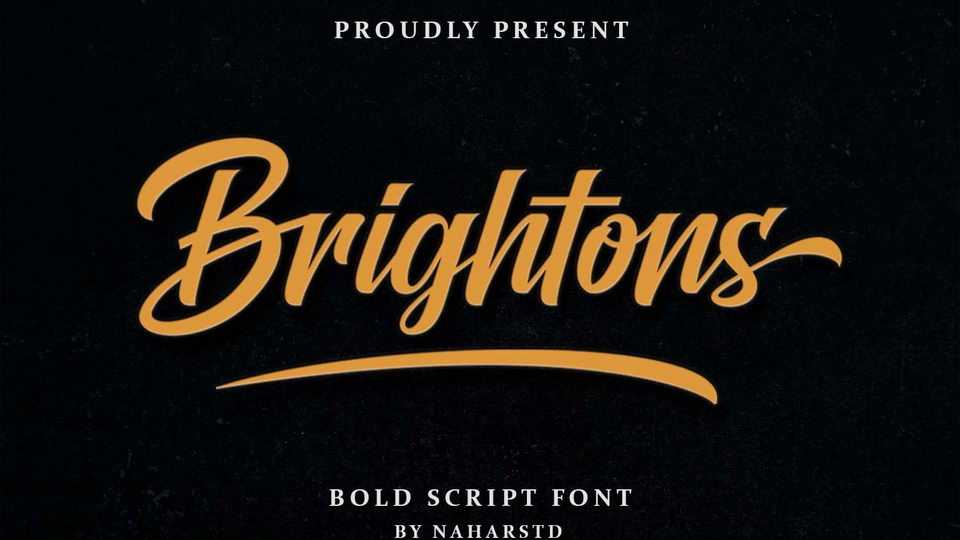
Download Brightons font, a bold style script typeface with authentic and casual feels. Brightons will be perfectly used for lranding, logo design, lettering, logotype, clothing, magazine, packaging, posters,
Designer: Naharstd